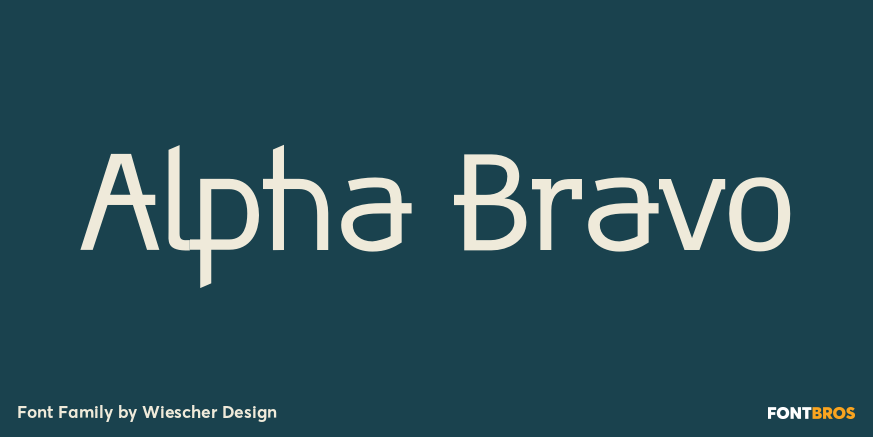
Alpha Bravo
About Alpha Bravo
AlphaBravo was born on a napkin. I was just doodling, playing around with letterforms when the ballpoint glided a little bit too far and suddenly I had my first letter with the dash sticking out on the left of the e\’s horizontal line. I quickly checked…